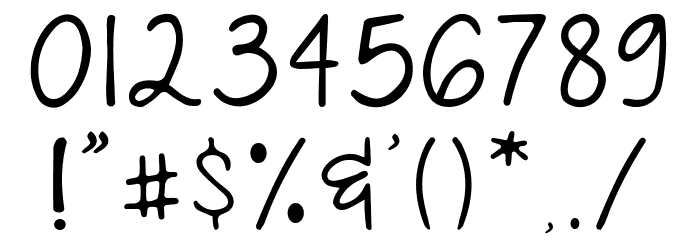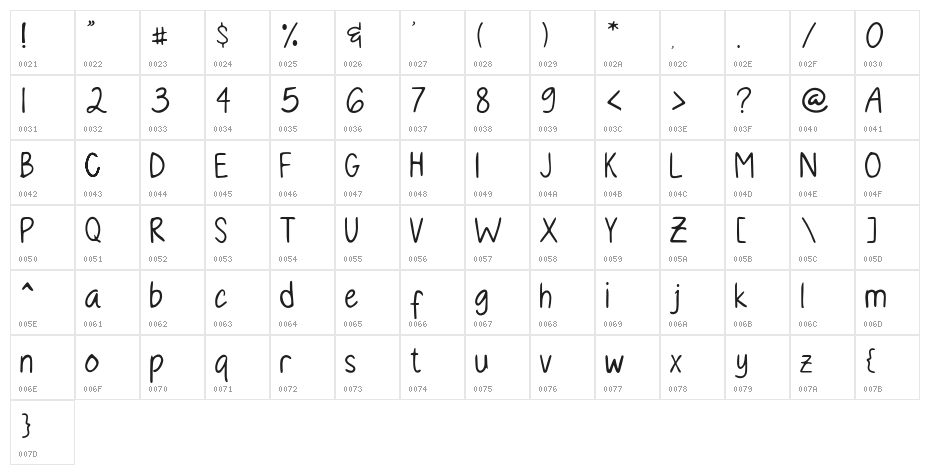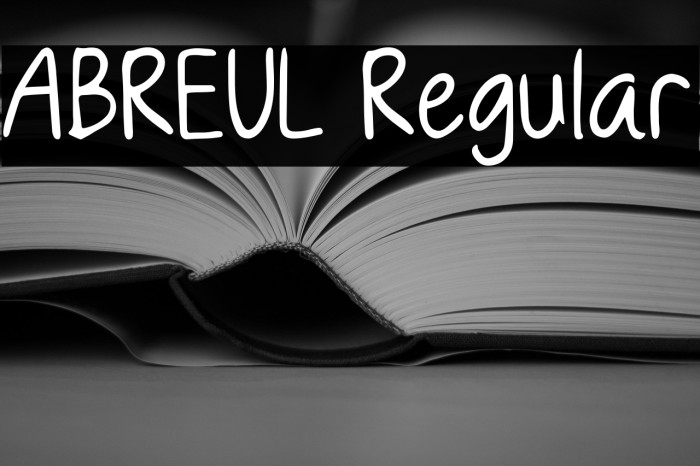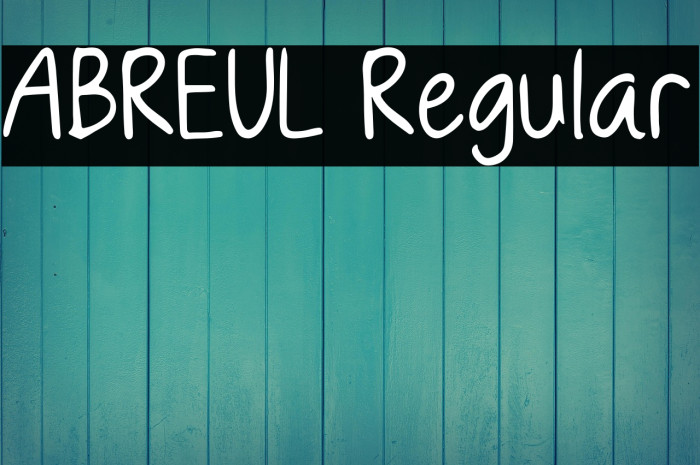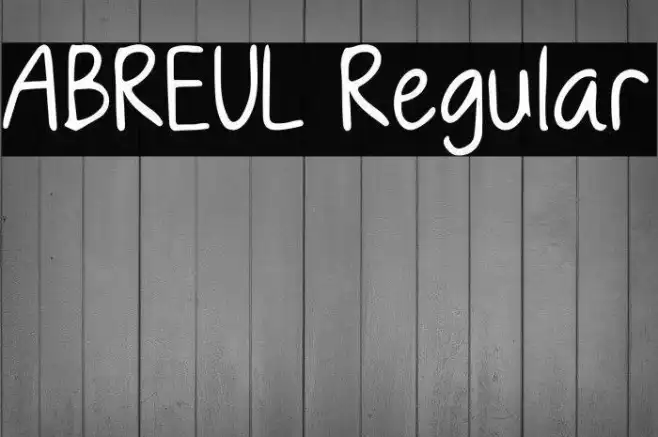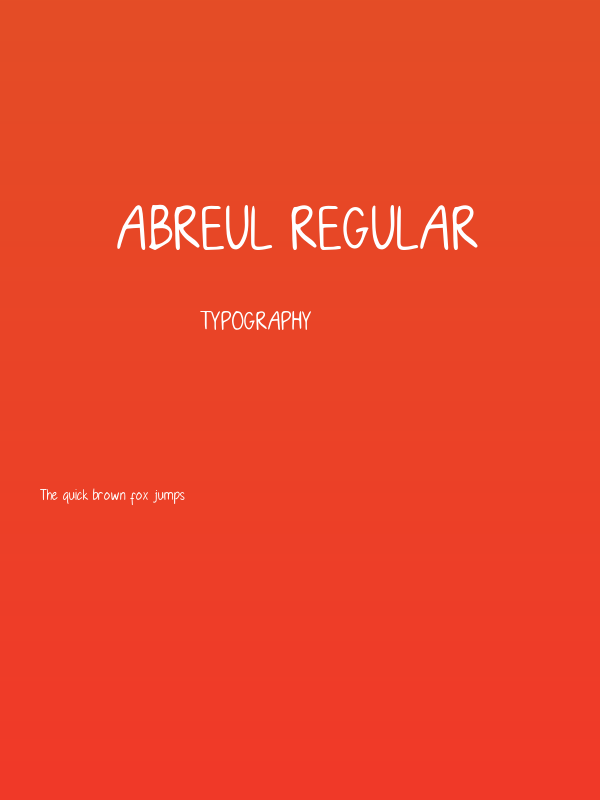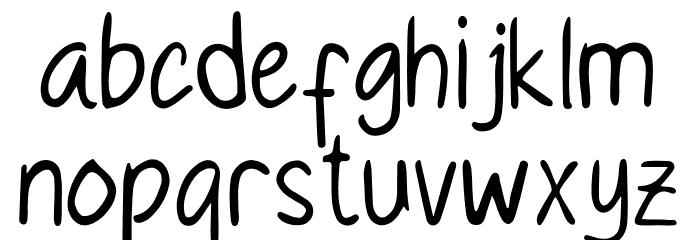
ABREUL Regular Font
ABREUL Regular Description
This font features a playful and casual handwritten style, characterized by its smooth, rounded edges and slightly irregular letterforms. The uppercase and lowercase letters maintain a consistent flow, giving a sense of informality and approachability. The numerals and special characters are crafted with the same playful touch, making them blend seamlessly with the alphabet. The overall appearance is friendly and inviting, suitable for projects that require a personal or whimsical touch.
| Use Case | Headlines, Informal text, Branding |
| Proposed Projects | Ideal for greeting cards, children's books, informal invitations, and playful branding. |